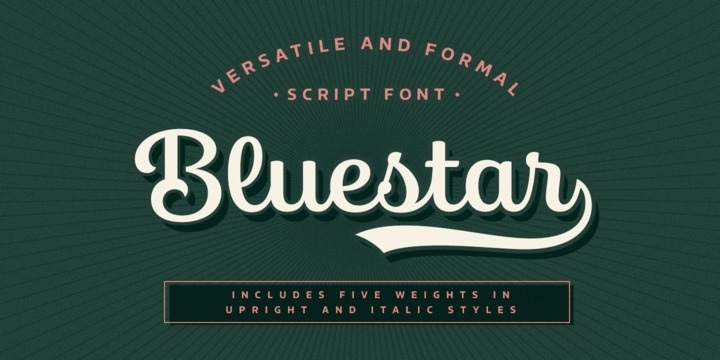
Bluestar Font
Bluestar Font is perfect for space-themed projects, astronomy websites, sci-fi movie titles, planetarium displays, space agency branding, stargazing app interfaces, cosmic educational materials, observatory signage, space exploration documentaries, and celestial-themed merchandise designs.
What makes Bluestar Font so exciting is its remarkable ability to capture the wonder and mystery of the cosmos through typography. This celestial typeface draws inspiration from the infinite beauty of starlit skies and distant galaxies, creating letterforms that seem to shimmer with cosmic energy. The font's stellar design elements perfectly evoke the majesty of space exploration and astronomical discovery, making it an ideal choice for projects that aim to inspire curiosity about the universe.
Bluestar Font comes in multiple font families including Regular, Bold, Light, Italic, Bold Italic, Condensed, Extended, and Glow variations. Each family member maintains the core stellar characteristics while offering different luminosity levels and stylistic approaches to suit various space-themed design requirements.
The Bluestar Font Free Download offers designers an extraordinary opportunity to explore astronomical typography solutions. This remarkable typeface distinguishes itself through its unique ability to communicate themes of exploration, discovery, and infinite possibility. Whether you're creating educational content about space science, designing interfaces for astronomy applications, or developing branding for space-related organizations, this font delivers an authentic cosmic aesthetic.
The scientific precision behind Bluestar Font makes it particularly suitable for educational institutions, research facilities, and science communication projects. Its excellent readability ensures that complex astronomical information remains accessible while maintaining the inspiring visual appeal that captures public interest in space exploration.
Professional designers working in science communication appreciate how Bluestar Font bridges the gap between technical accuracy and popular appeal. The typeface's versatile design works effectively across digital platforms, print materials, and interactive displays, making it perfect for planetarium shows, museum exhibitions, and educational websites.
For creative professionals in the science and technology sectors, Bluestar Font provides the perfect foundation for establishing authoritative yet inspiring visual identities. The font's cosmic elegance resonates with audiences who are fascinated by space exploration and astronomical phenomena.